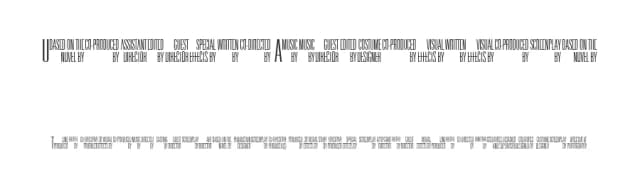
About Invisible Killer Font
Invisible Killer is a decorative font designed by TracerTong Fontworks. It includes 74 glyphs, a semibold weight, TTF (TrueType) format, and 89 languages. Invisible Killer is free to download; check the license details on this page before commercial use. Decorative fonts like Invisible Killer work best for logos, posters, packaging, and standout headlines.
Invisible Killer Font is a decorative font that shines as a display or heading face. Pair it with a clean sans-serif or serif font for body text β the contrast creates a clear hierarchy while the two styles stay balanced and easy to read.
Invisible Killer Font
Invisible Killer Font is a decorative typeface by TracerTong Fontworks, ideal for logos, invitations, branding, and creative projects.